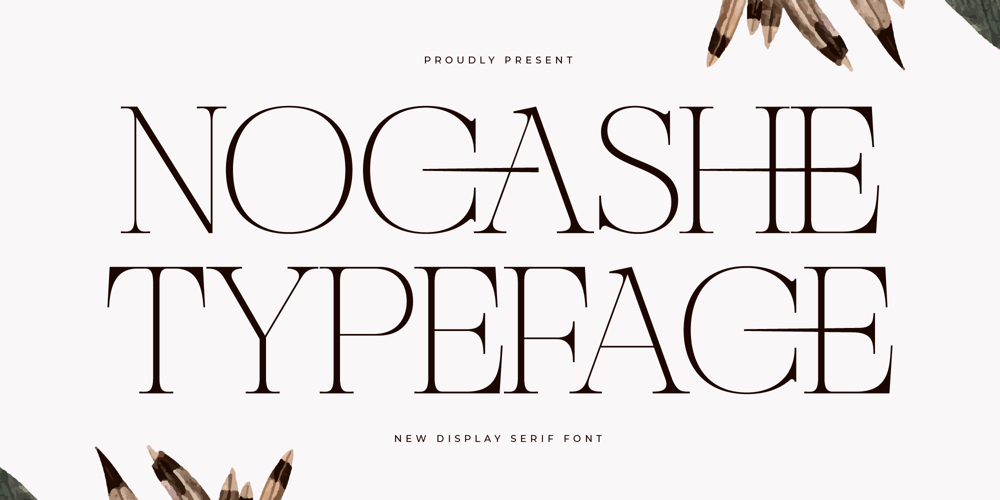
Nocashe Font Family was designed by Heru Utama Putra and published by Letterena Studios. Nocashe contains 2 styles and family package options. Nocashe is a classic, yet modern serif typeface that has its unique style. It is perfect for elegant and luxurious logos, book and movie title design, fashion brands, magazines, lettering, labels, and more.–Uppercase